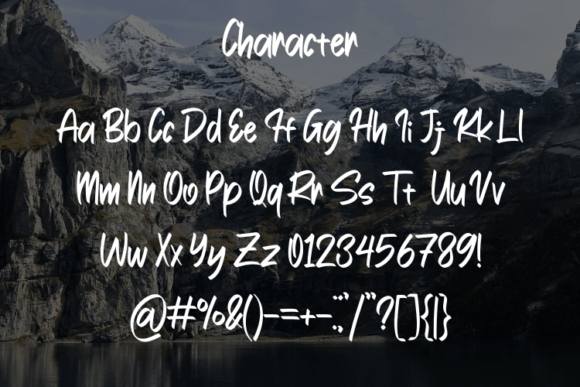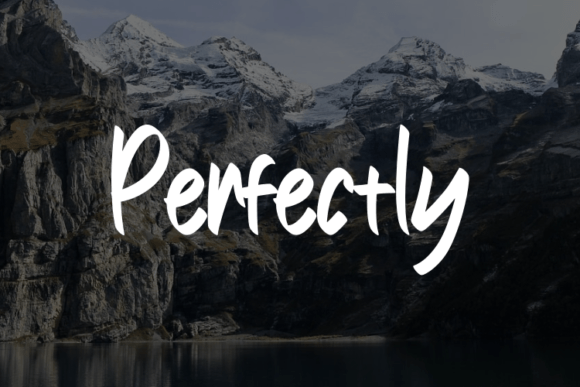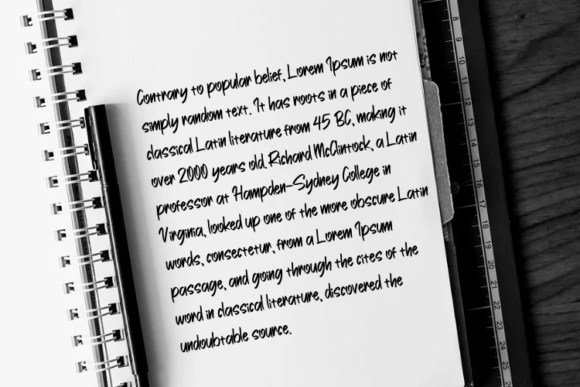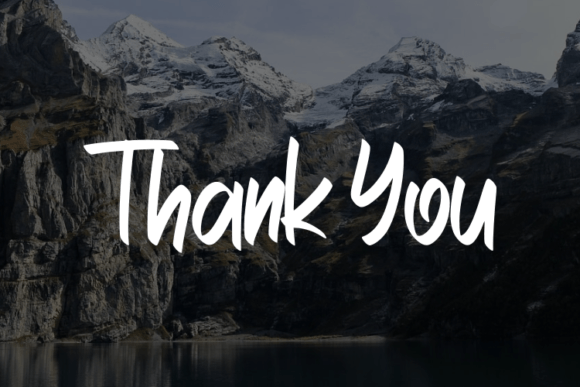
Introduction to Colosal Font
Colosal is a script typeface that has a simple style and modern look.
This font is perfect for an elegant and luxurious logo, book or movie design titles, fashion brands, magazines, clothing, fonts, quotes, and more .